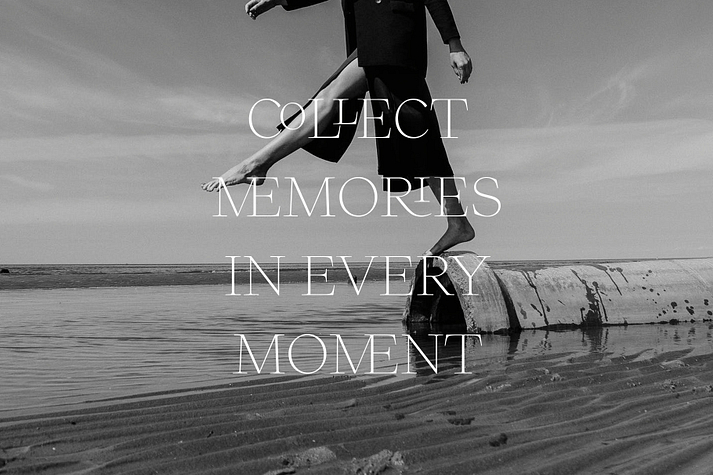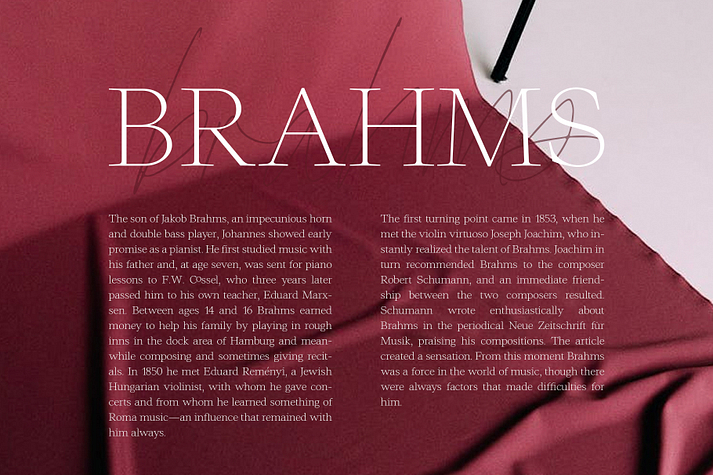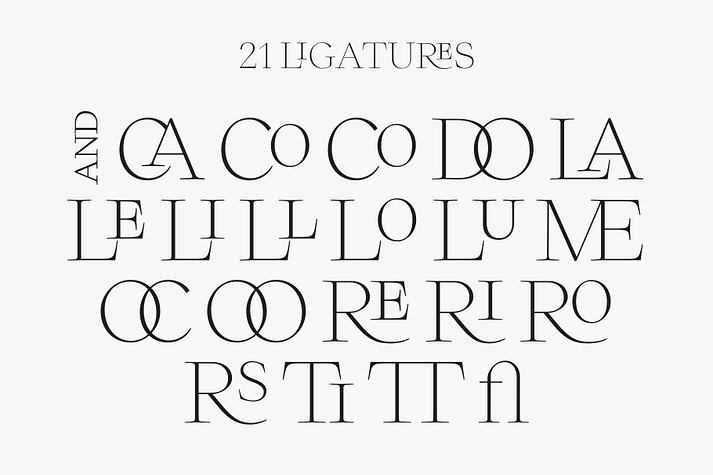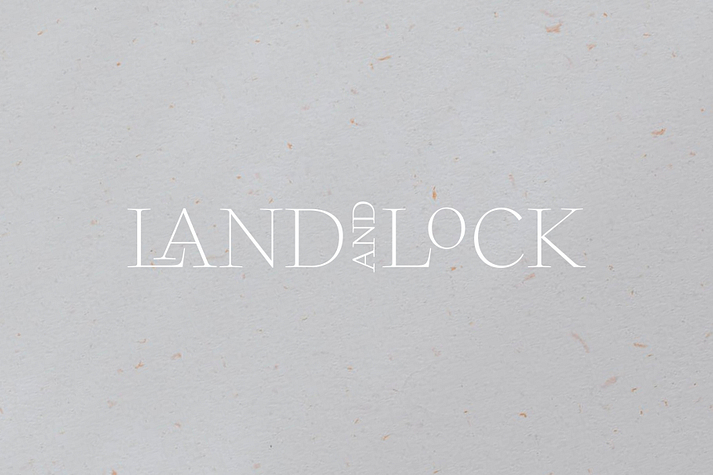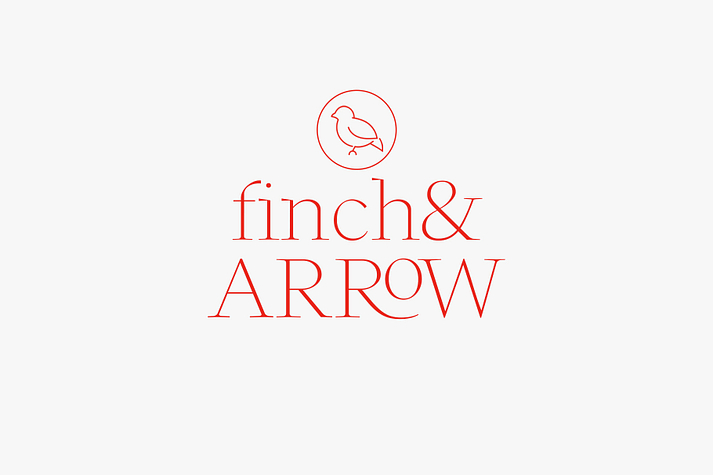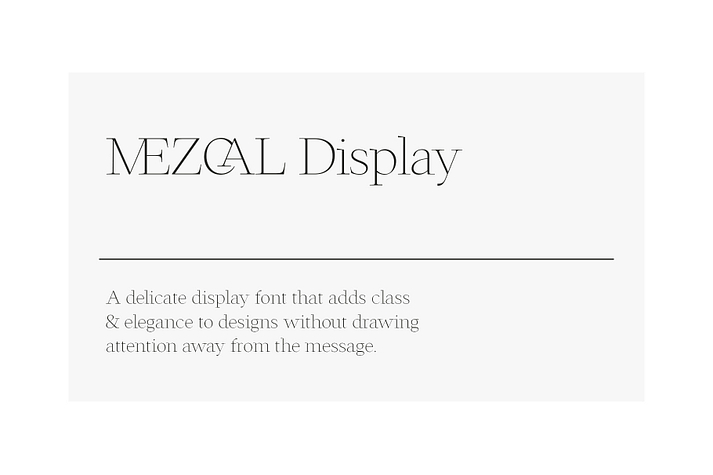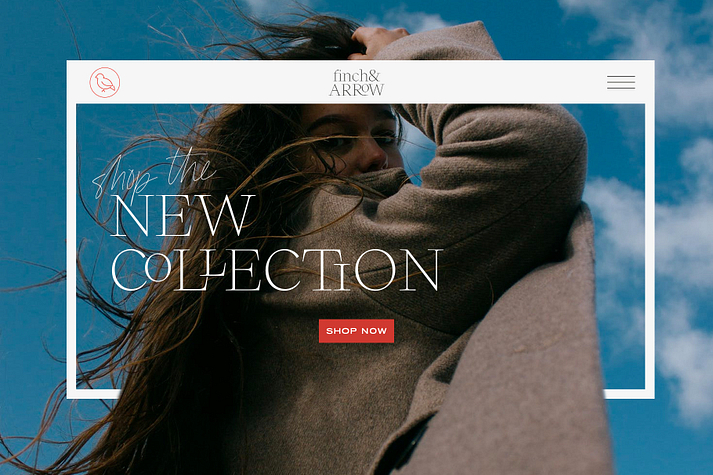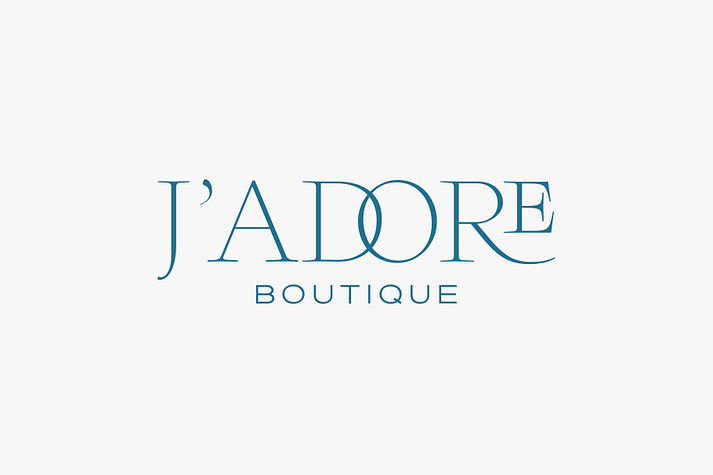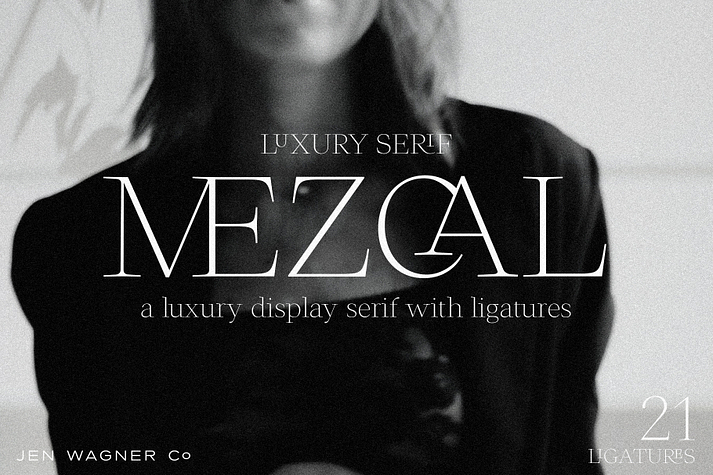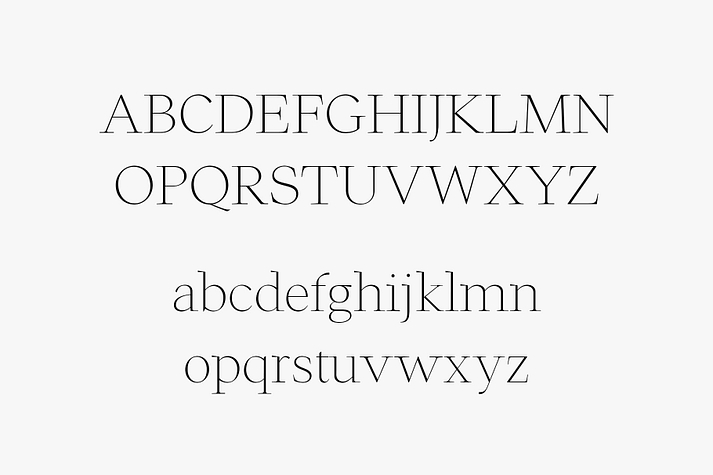
Mezcal Serif
Mezcal Serif is a serif font family published by Jen Wagner Co.
Mezcal is a new, stunning serif that gives you the look of a totally customized logo with special ligatures, with the flexibility to also create stunning and delicate body text.
This modern serif can turn a basic wordmark into a custom-looking logo in one click.
• Uppercase & lowercase, numbers, punctuation
• 21 common ligatures for extra customization